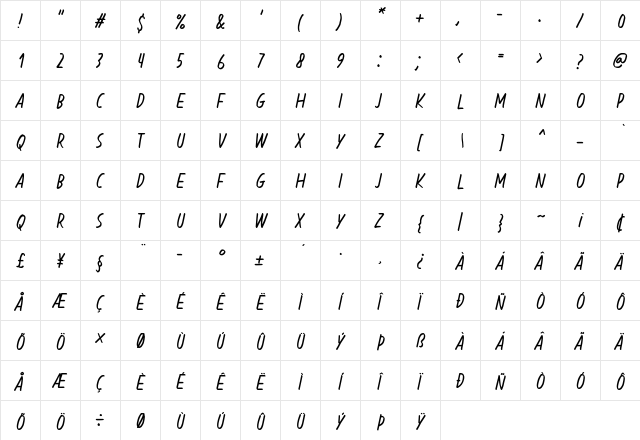
Blessing in Disguise Italic
| Foundry | 7NTypes |
| Designer | Situjuh Nazara |
Design Context for Blessing in Disguise Typeface
Blessing in Disguise takes a measured approach to typography — its balanced proportions and neutral character make it a reliable workhorse for both digital and print work. The dynamic lean of this cut emphasises speed and emphasis in any layout.
Pro Tip: Try Blessing in Disguise for annotation and caption copy alongside an upright companion — the contrast in angle creates a dynamic but ordered typographic system.